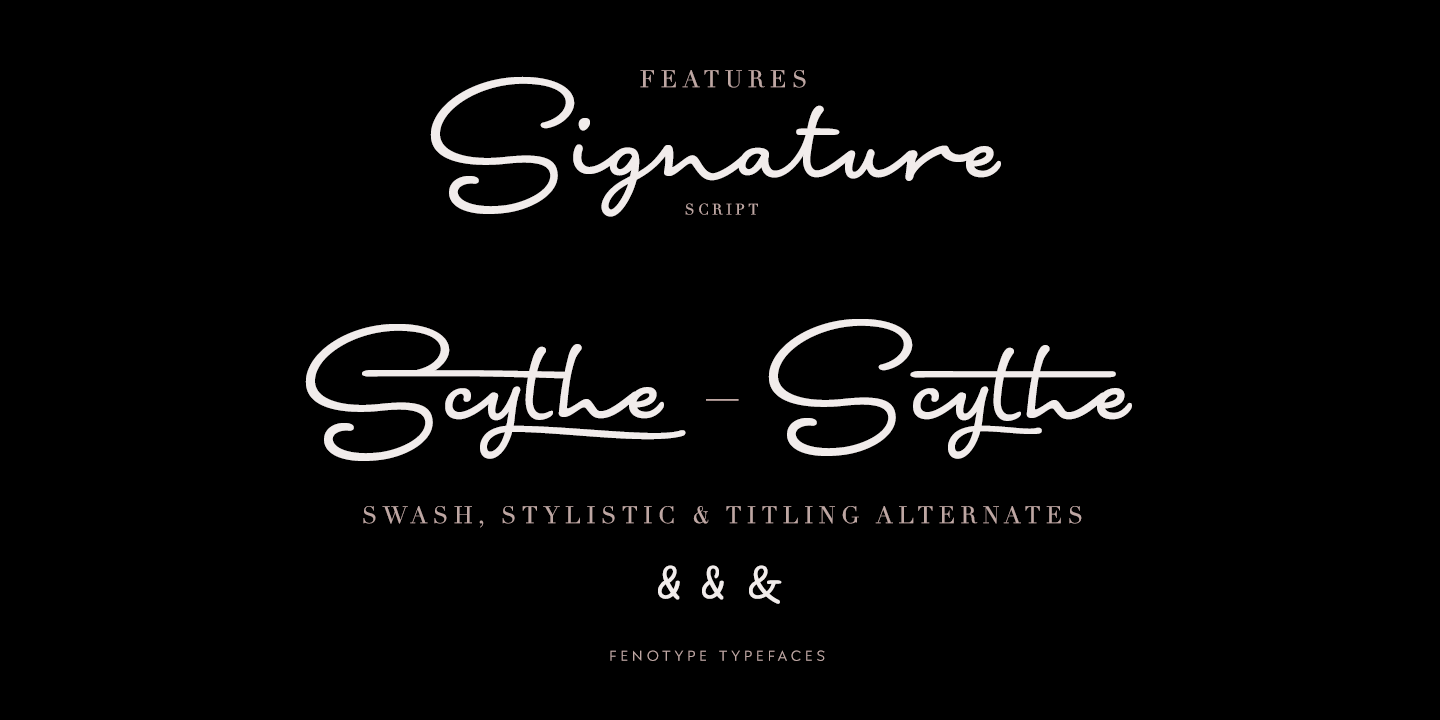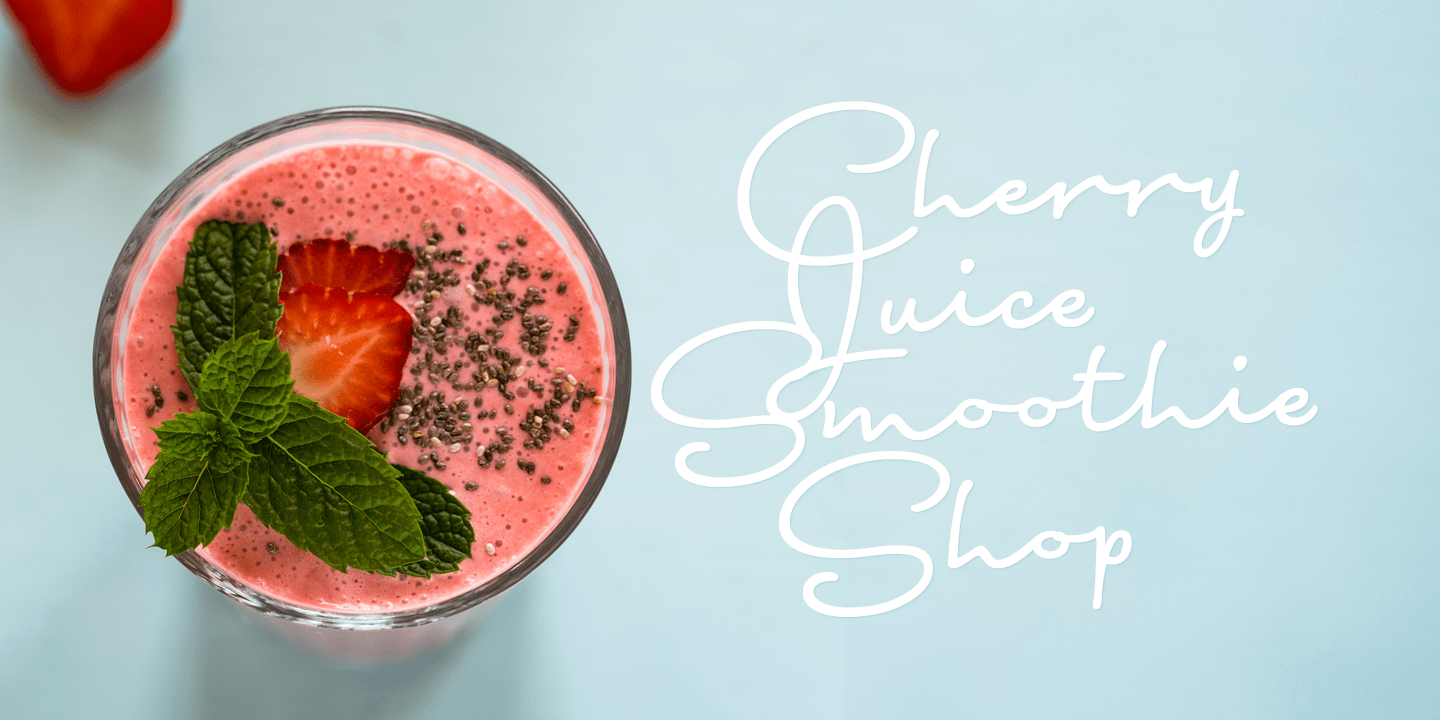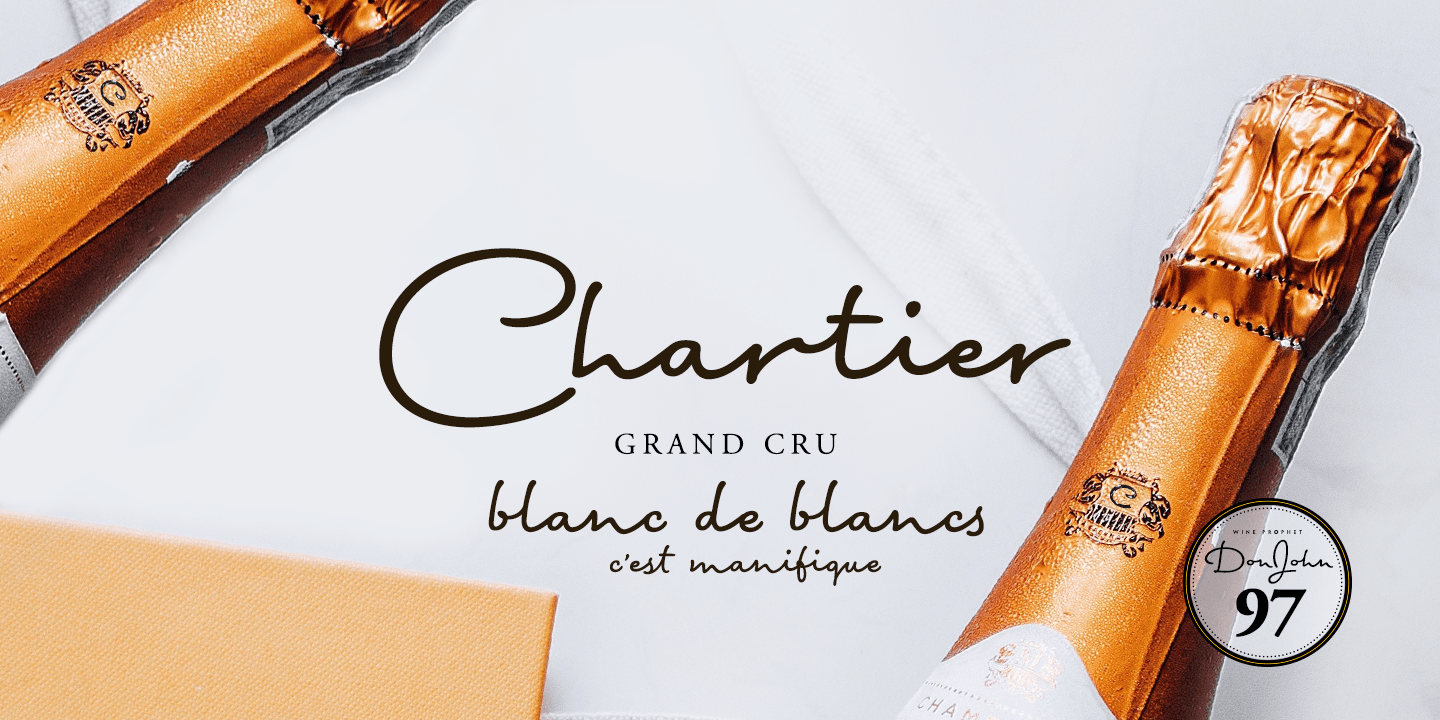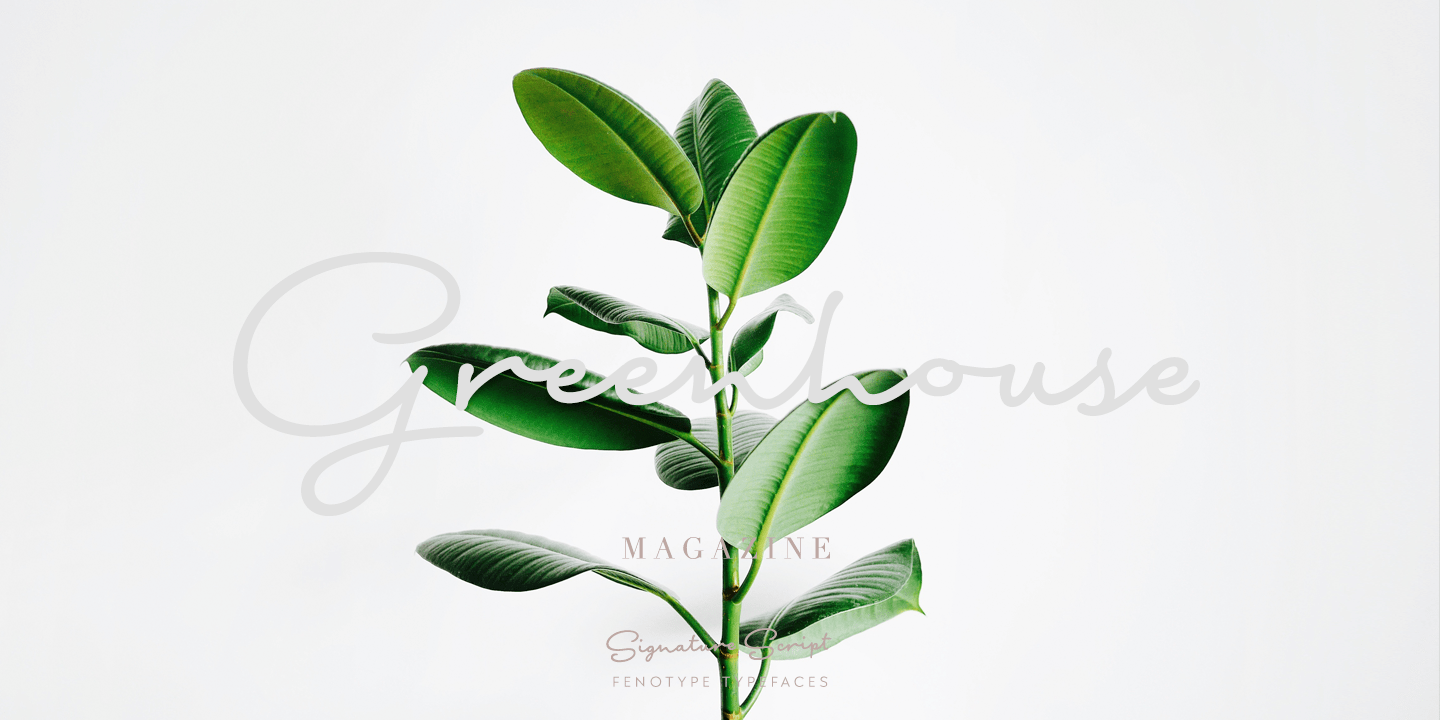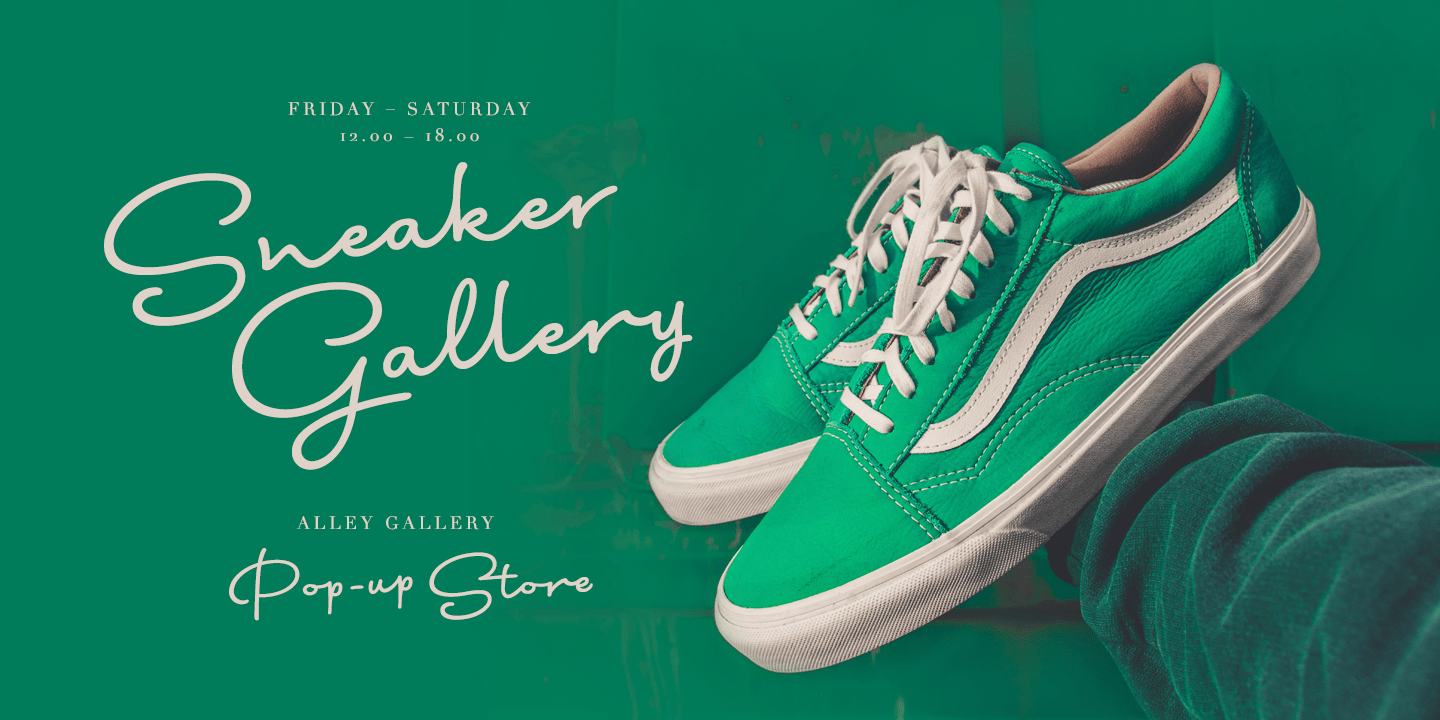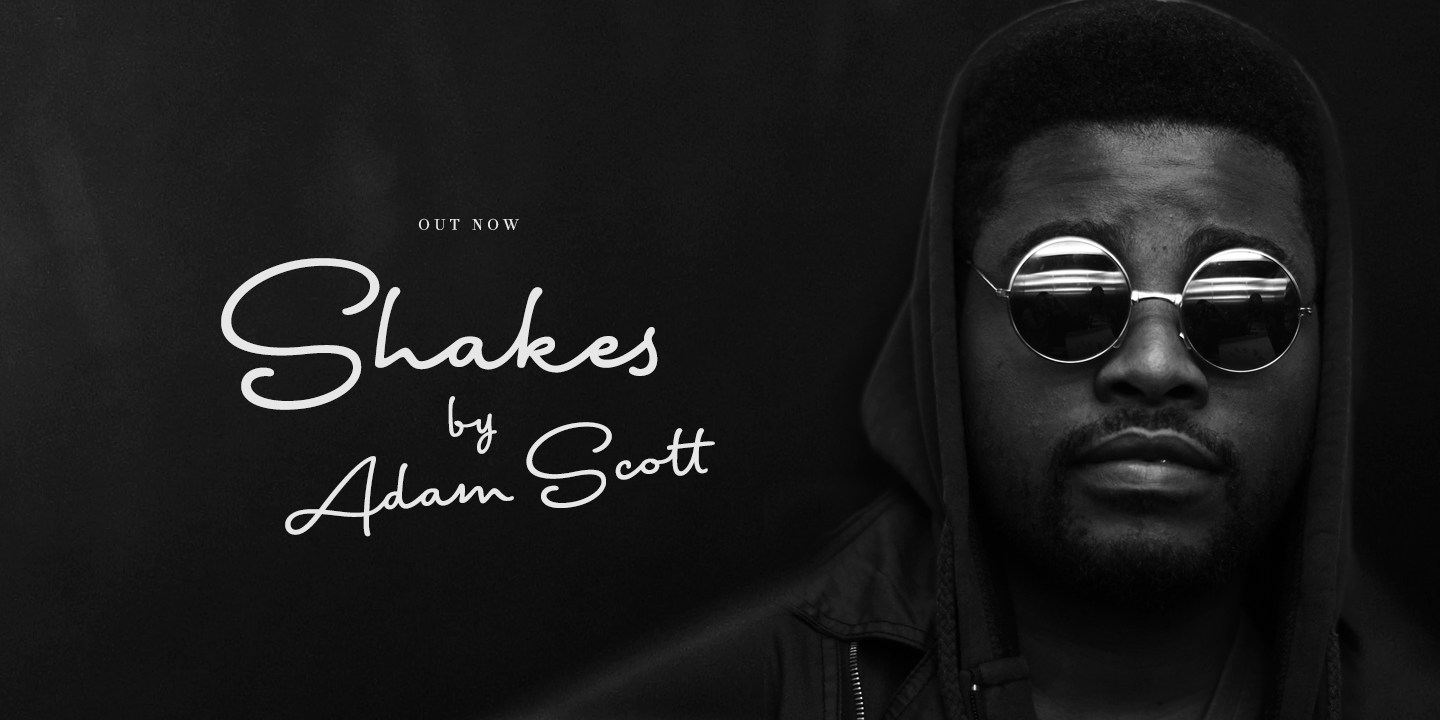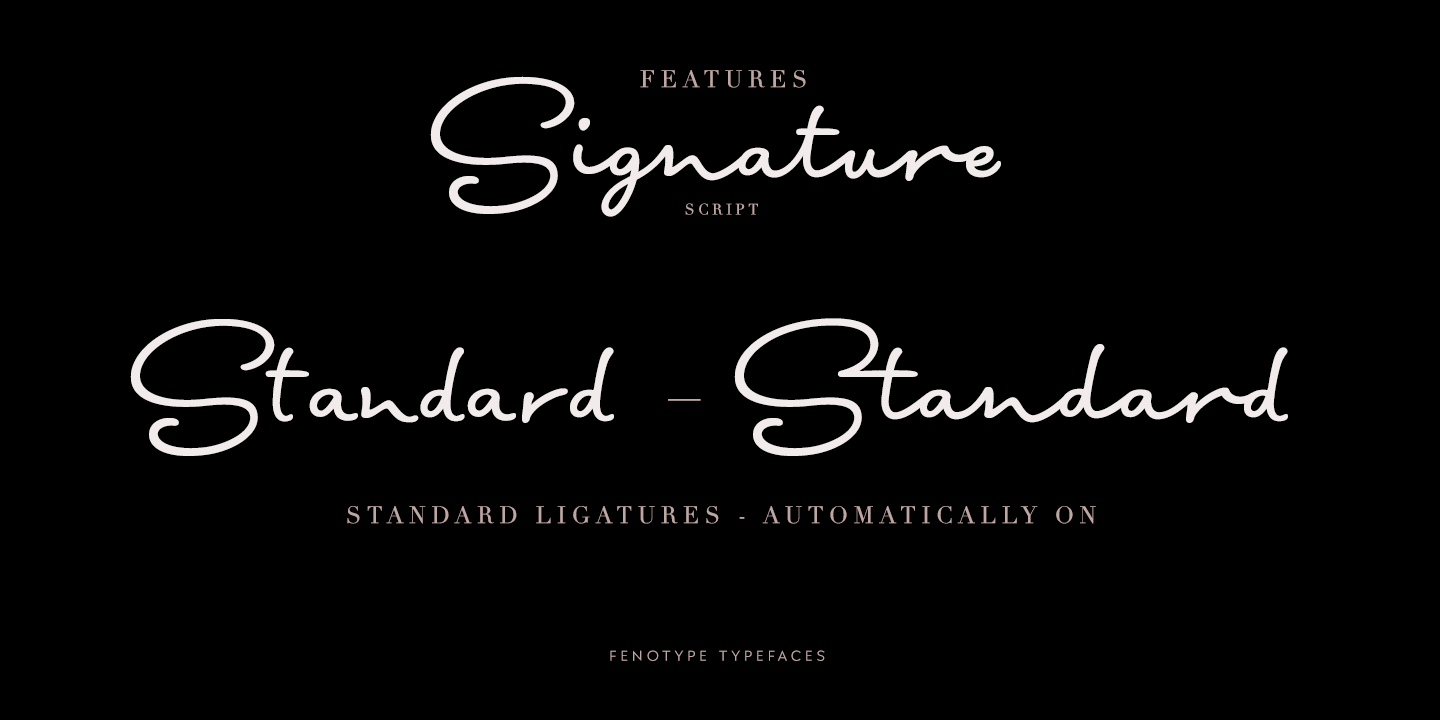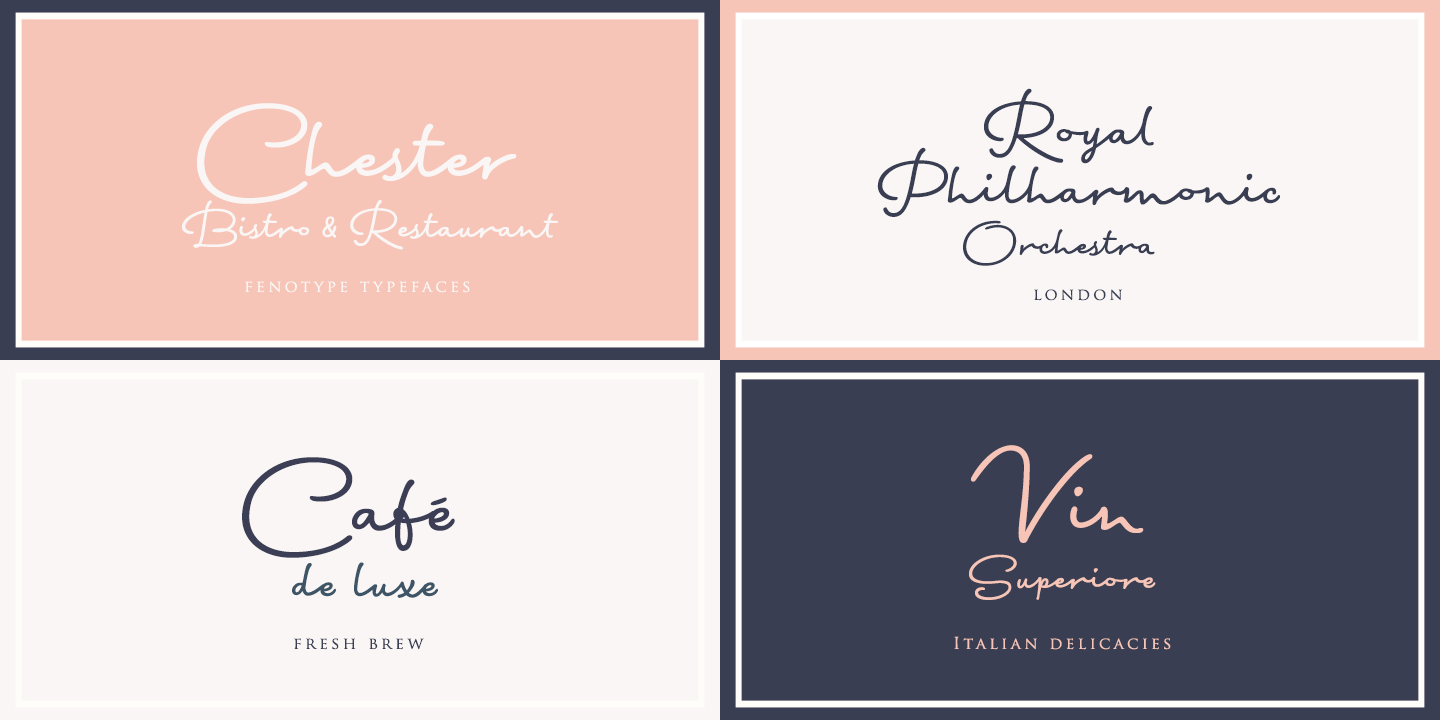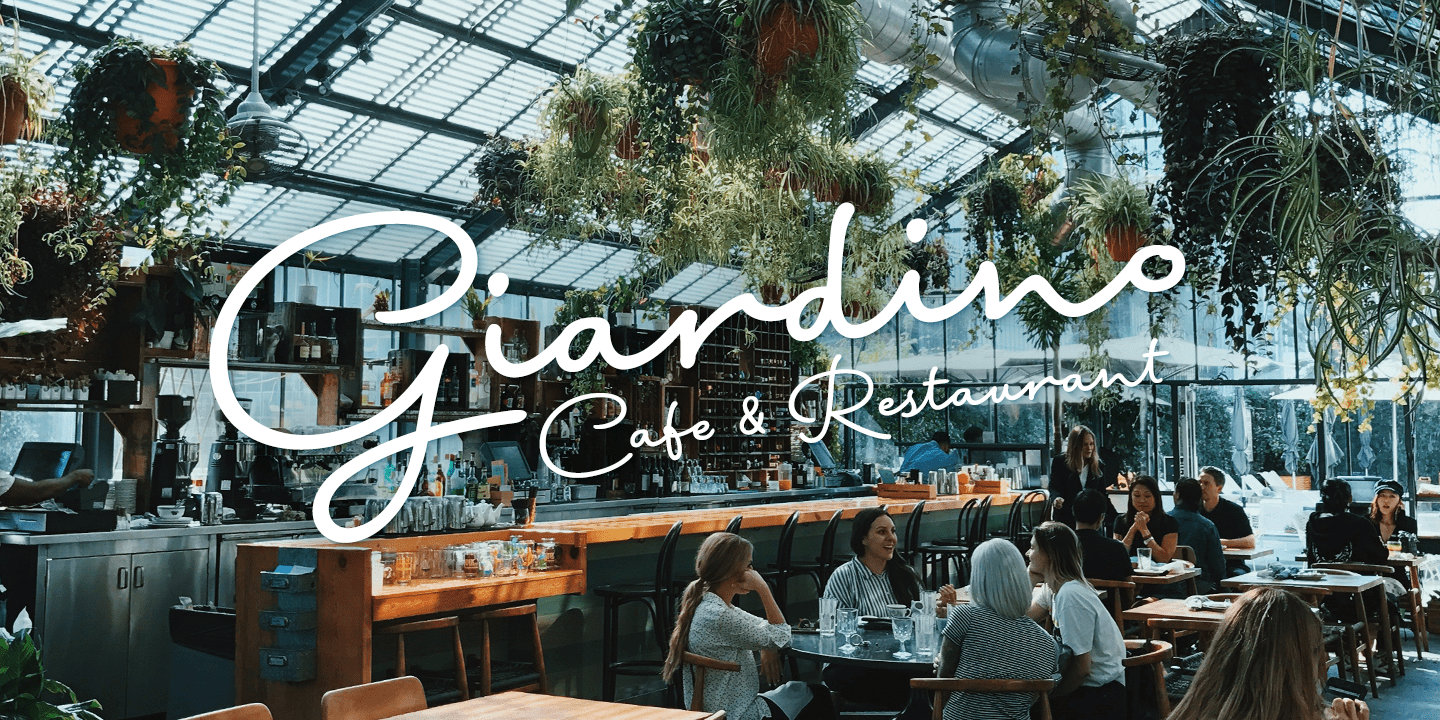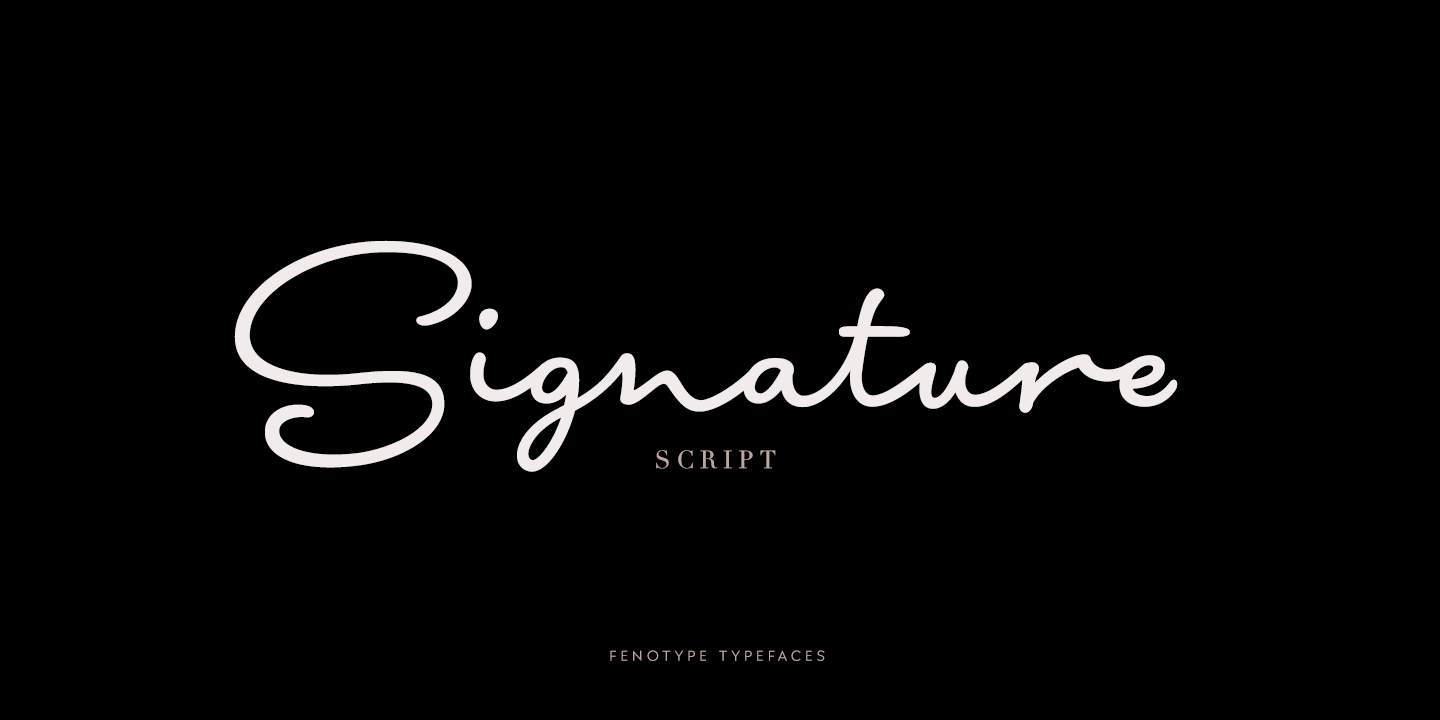
Signature Script Fenotype
About Signature Script Fenotype
Signature Script is a smooth pen script with large display capitals and small but legible lowercase letters. It\’s ideal for logo, signature, poster, brochure or any display use. Signature Script is great for typing headlines or a restaurant logo – it\’s…